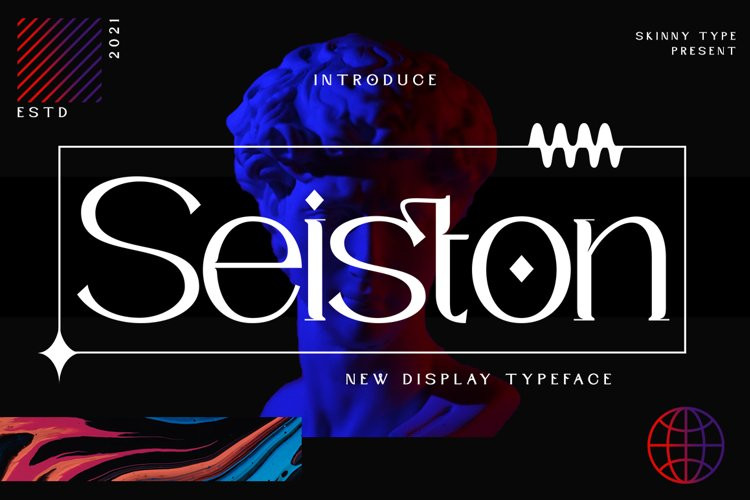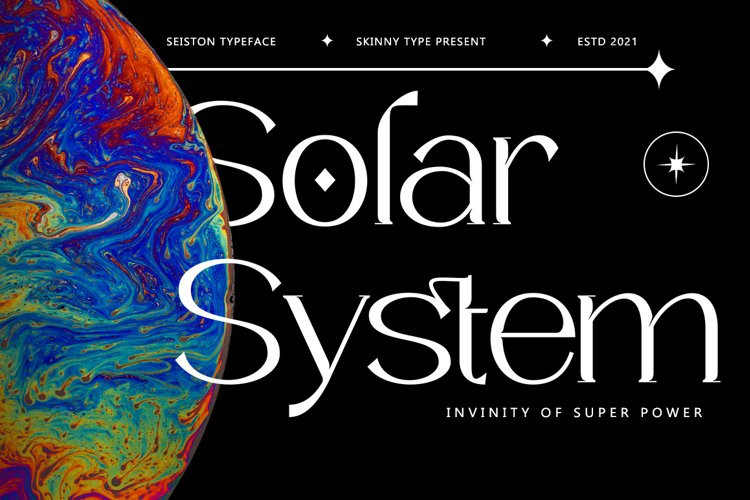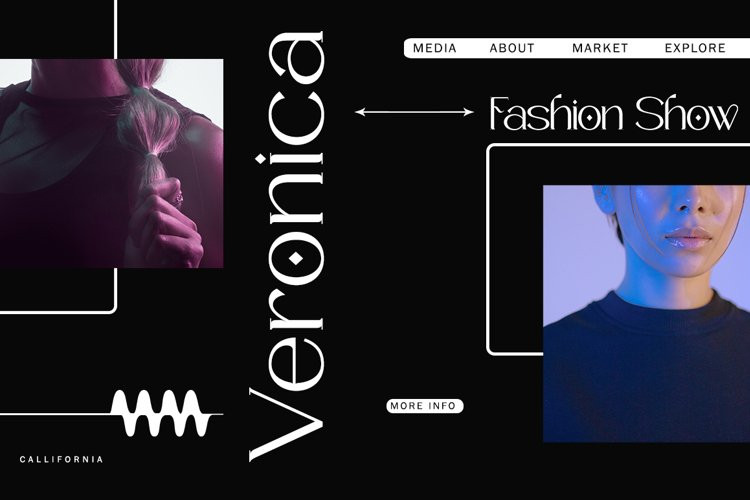
Seiston Font
SeistonSeiston is the New Modern Typeface. This other Serif collection is perfect for your next branding project, great for your business. Gallient has smooth edges, so this font gives this style an authentically handcrafted feel.https://fontbundles.net/skinny-art/1663546-seiston-display-typeface
Seiston